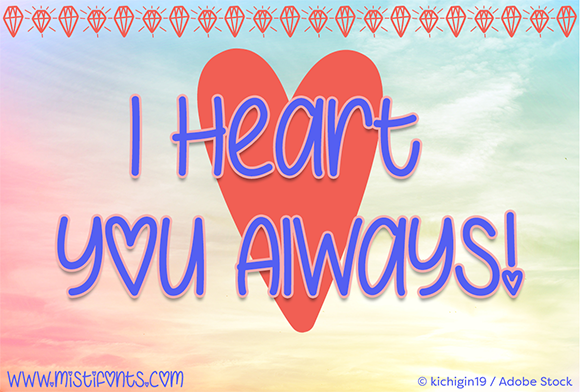
Journey into the world of creativity with I Heart You Always Font, an enchanting script font that sparks imagination and captivates hearts. This unicase font is a labor of love, meticulously crafted by Misti, a renowned font artist.
Picture yourself designing heartfelt invitations, playful posters, or charming social media posts. I Heart You Always Font adds a touch of magic to your words, transforming them into visual masterpieces. The unique heart-shaped dot over the letter "i" and sparkling diamond embellishments add a whimsical touch that makes your designs stand out.
With its charming personality and versatility, this font is ideal for a variety of projects, from heartfelt love letters and greeting cards to eye-catching logos and branding. Express your creativity and spread love and joy with every design you create.
Key Features of I Heart You Always Font:
- Enticing unicase script font that adds a personal touch to your designs.
- Versatile and suitable for a wide range of projects, from personal to professional.
- Special symbols add a touch of sparkle and surprise to your designs:
- Type * (asterisk) for a solid heart.
- Type _ (underscore) for a diamond.
- Type | (vertical bar) for a shining diamond.